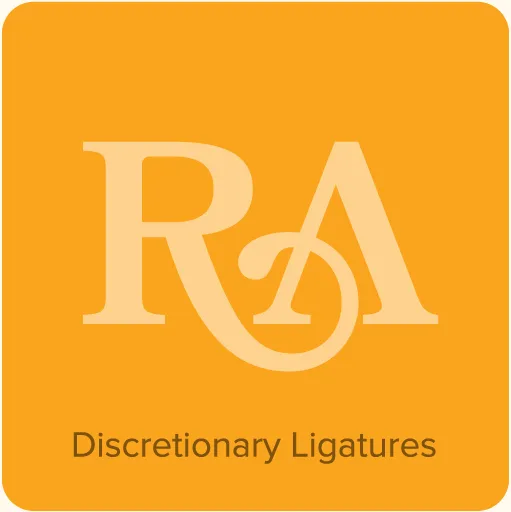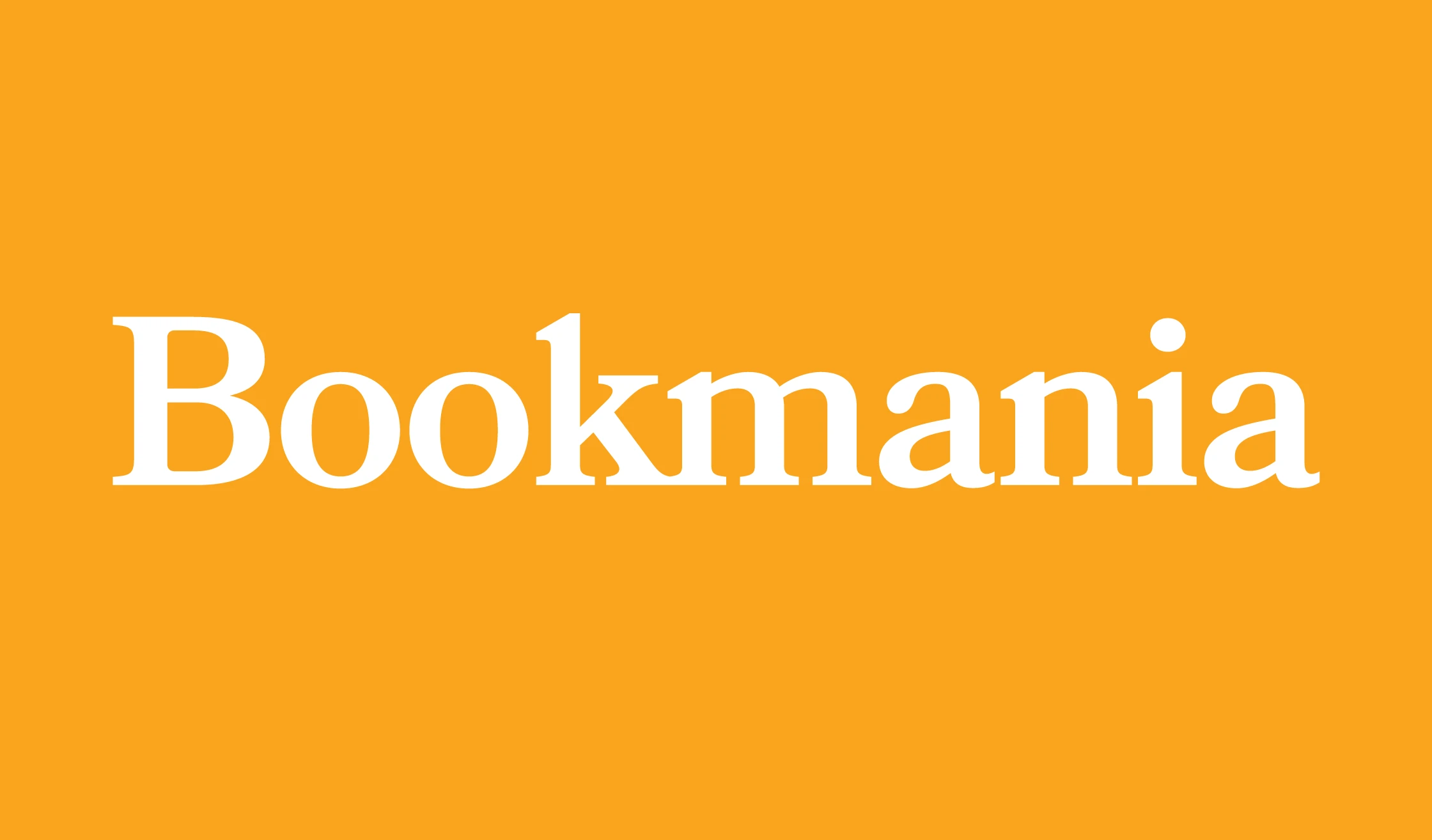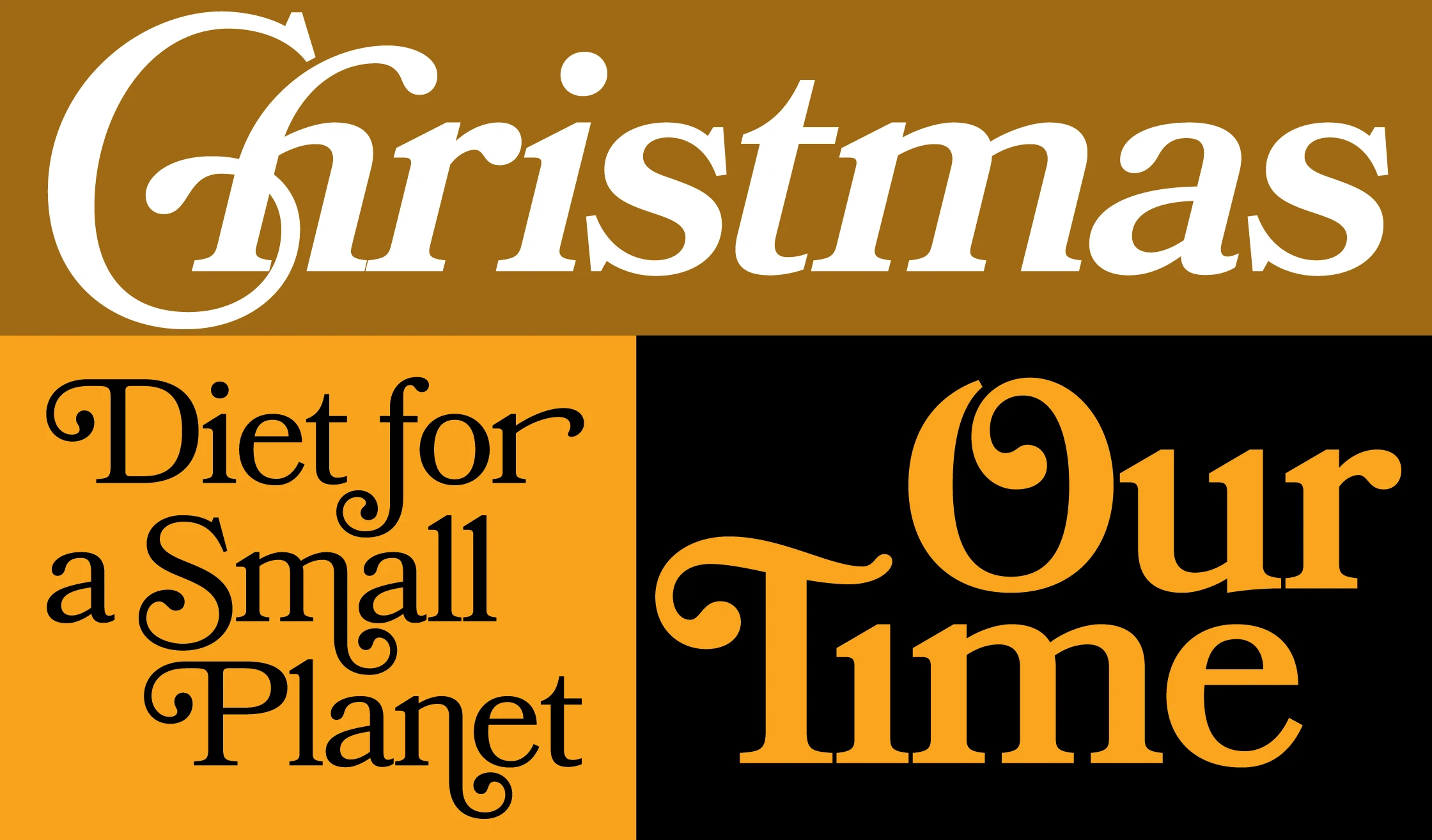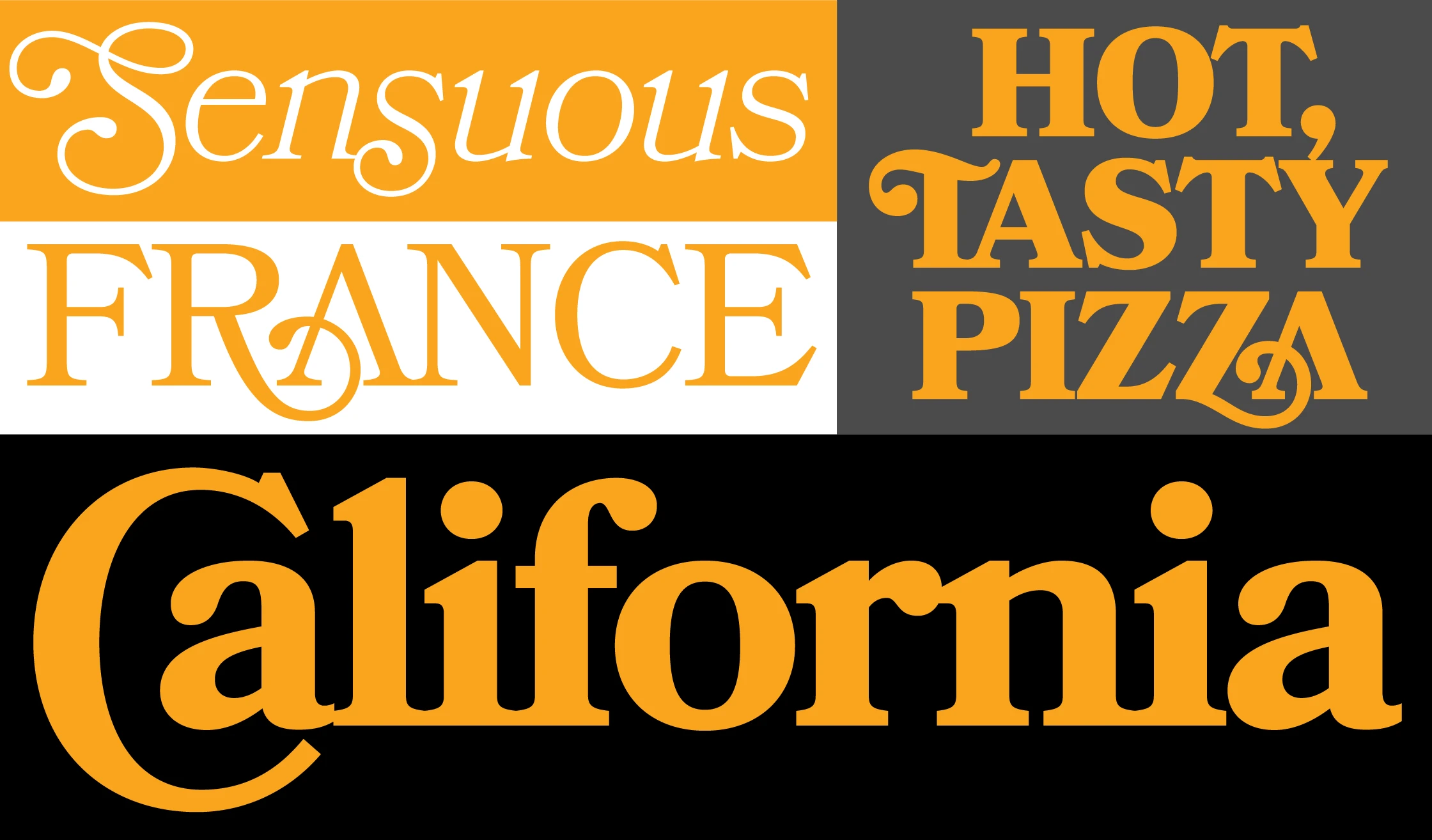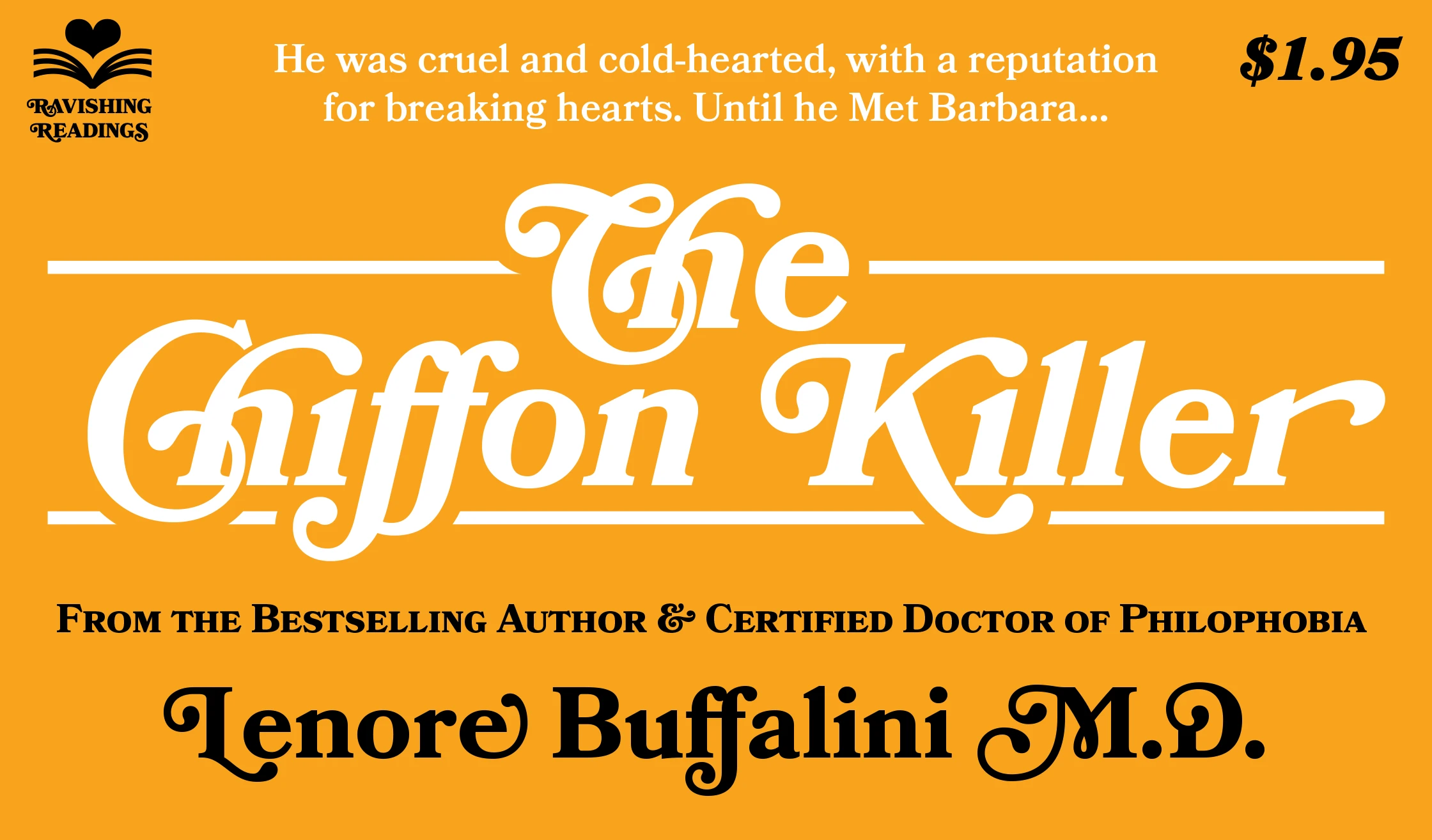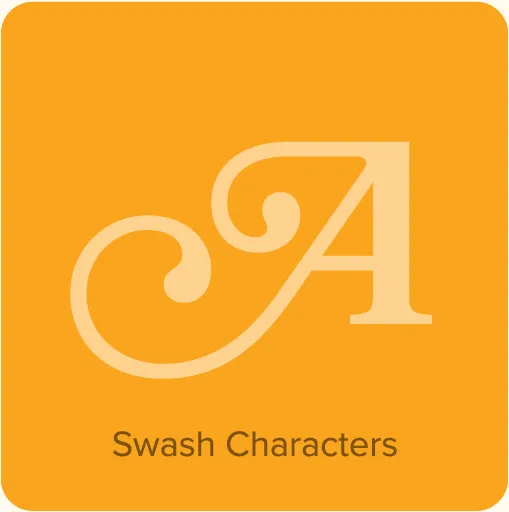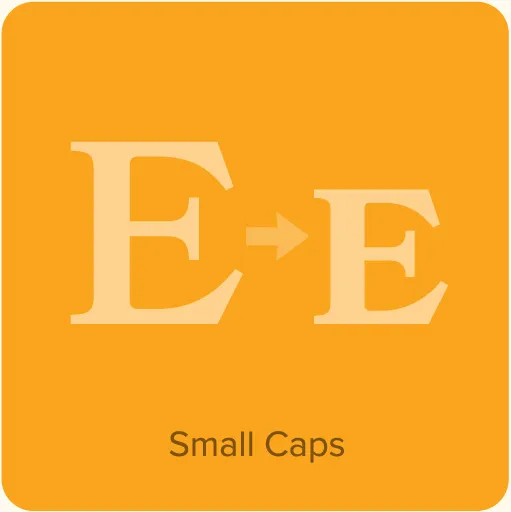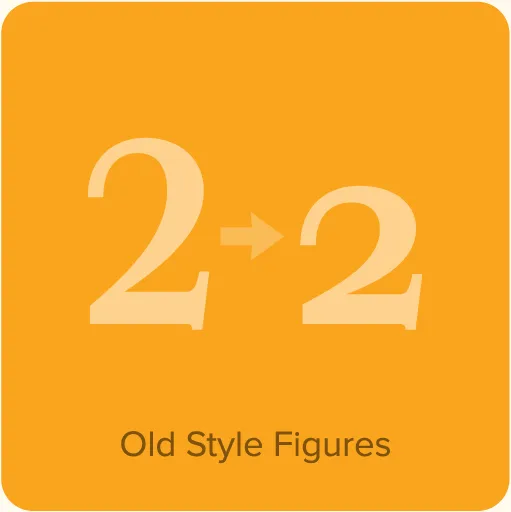
Bookmania (2011) combines the sturdy elegance of the original Bookman Oldstyle (1901) with the swashy exuberance of the Bookmans of the 1960s. With over 680 swash characters, more than any previous Bookman, the possibilities are endless. The broad range of weights make it great for display use, but it also works well for text. Unlike some Bookman revivals, it retains the original classic sloped roman for the italic. Bookmania includes all the features you would expect in a modern digital font family.
- Five weights: Light, Regular, Semibold, Bold, and Black.
- Matching italics for all weights.
- Matching small caps for all weights.*
- Lining and old style figures (both proportional and tabular).*
- Full “f” ligature set (including many swash variants).*
- 35 optional (discretionary) ligatures.*
- Over 680 swash characters.*
- Alternate characters, such as a Jenson-style lowercase e and unicase caps.*
- Automatic fractions.*
- Automatic ordinals.*
- Extended language support for most Latin-based Western and Central European languages, including all the swash and alternate characters.